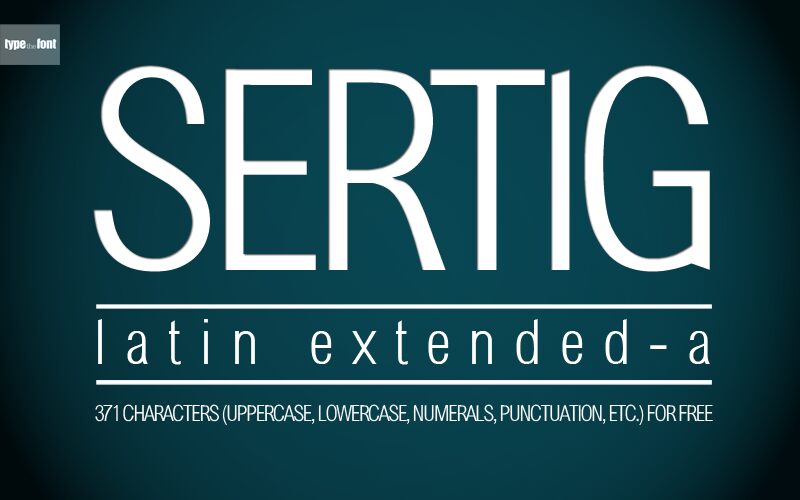
Sertig by Dannci of Type the Font is a free condensed sans serif with towering, slim letters and sharply changing stroke widths. The forms are pared back, yet their exaggerated height gives the lettering a cool, fashion-minded edge. Its curves stay smooth and controlled throughout.
Fashion editorial design is its clearest setting, especially for magazine cover lines and section openers that benefit from a lean, elegant silhouette. The same narrow construction suits fragrance packaging and boutique branding, where it can suggest refinement without ornamental detail. Posters and event graphics offer another useful home for its tall, precise shapes.